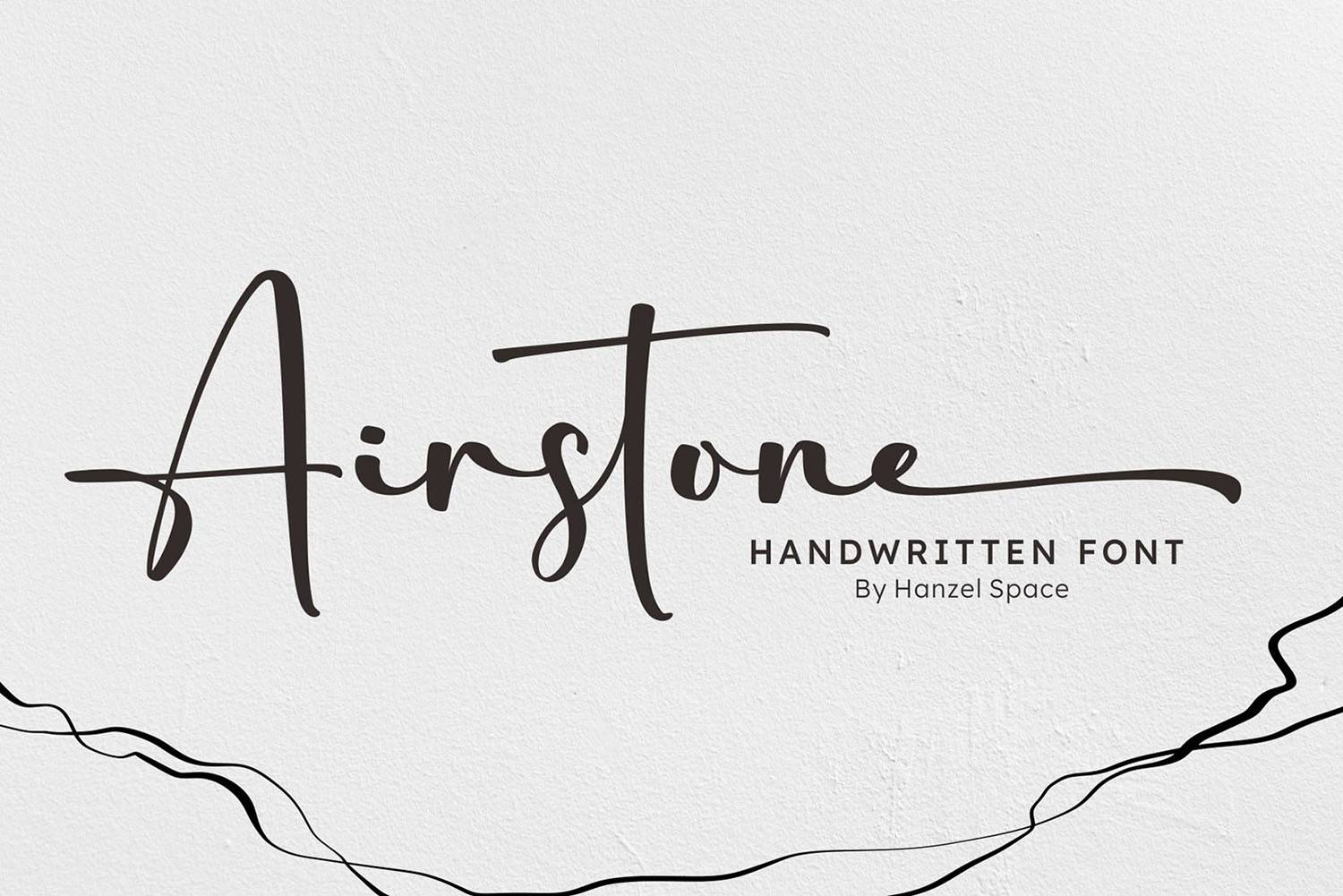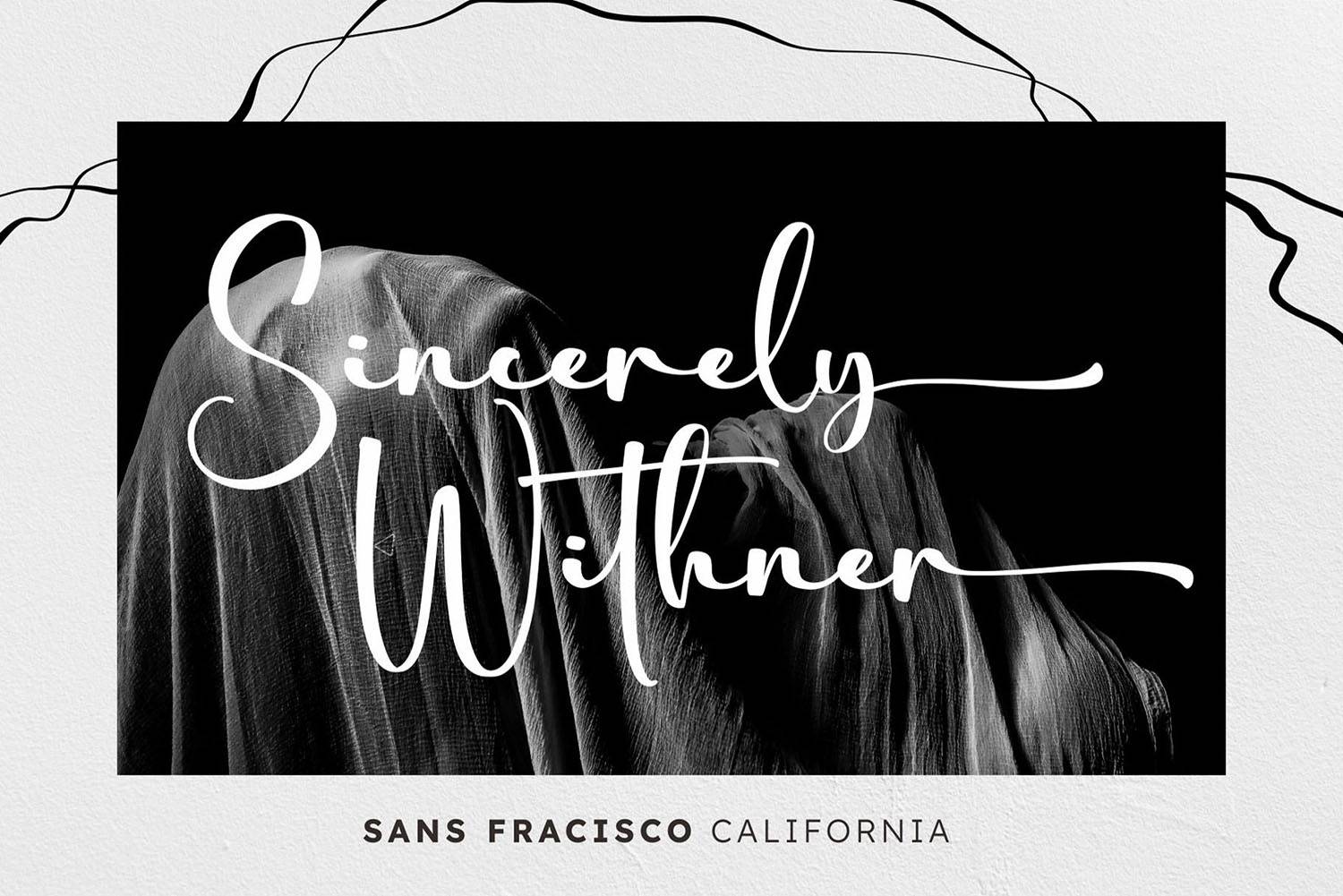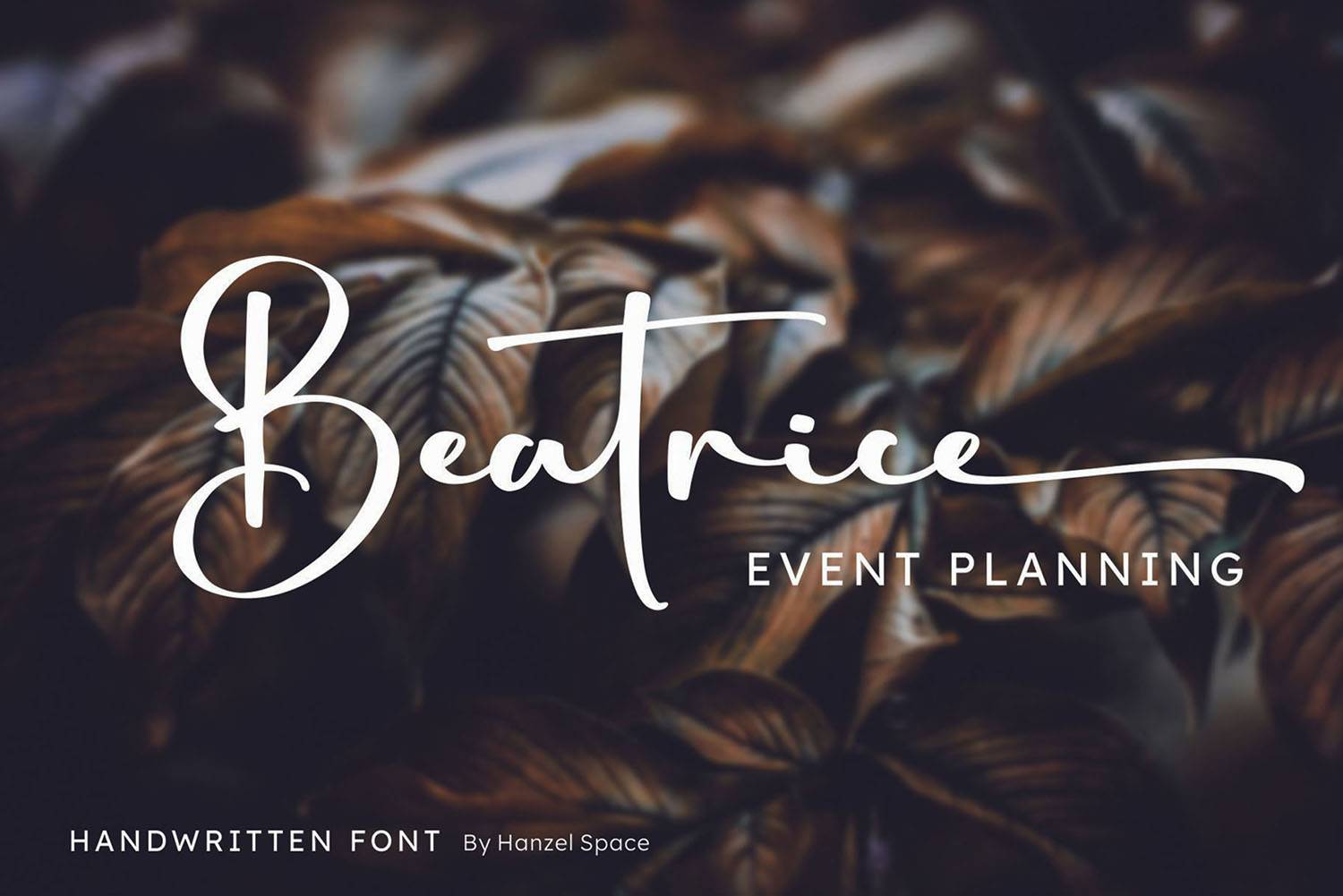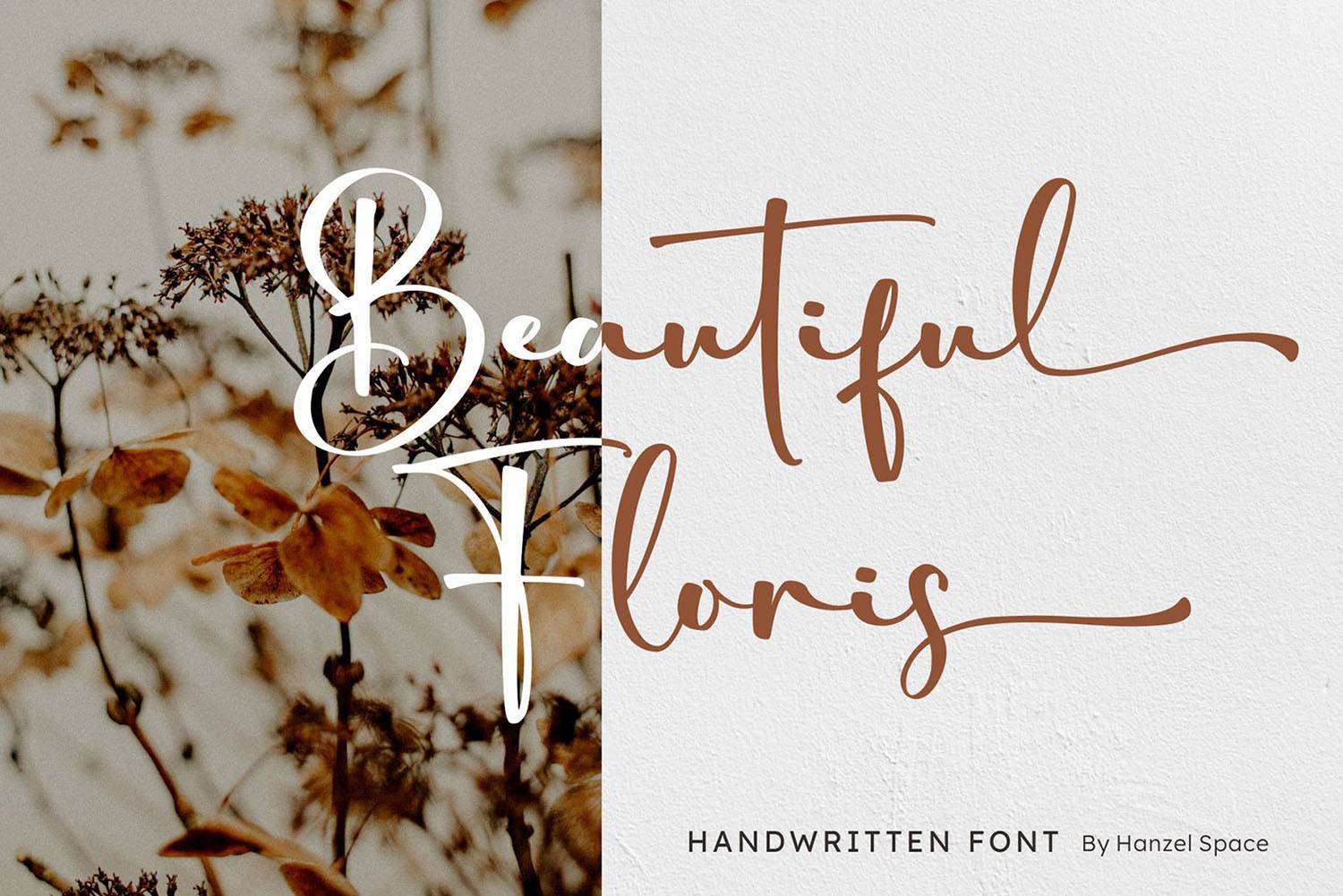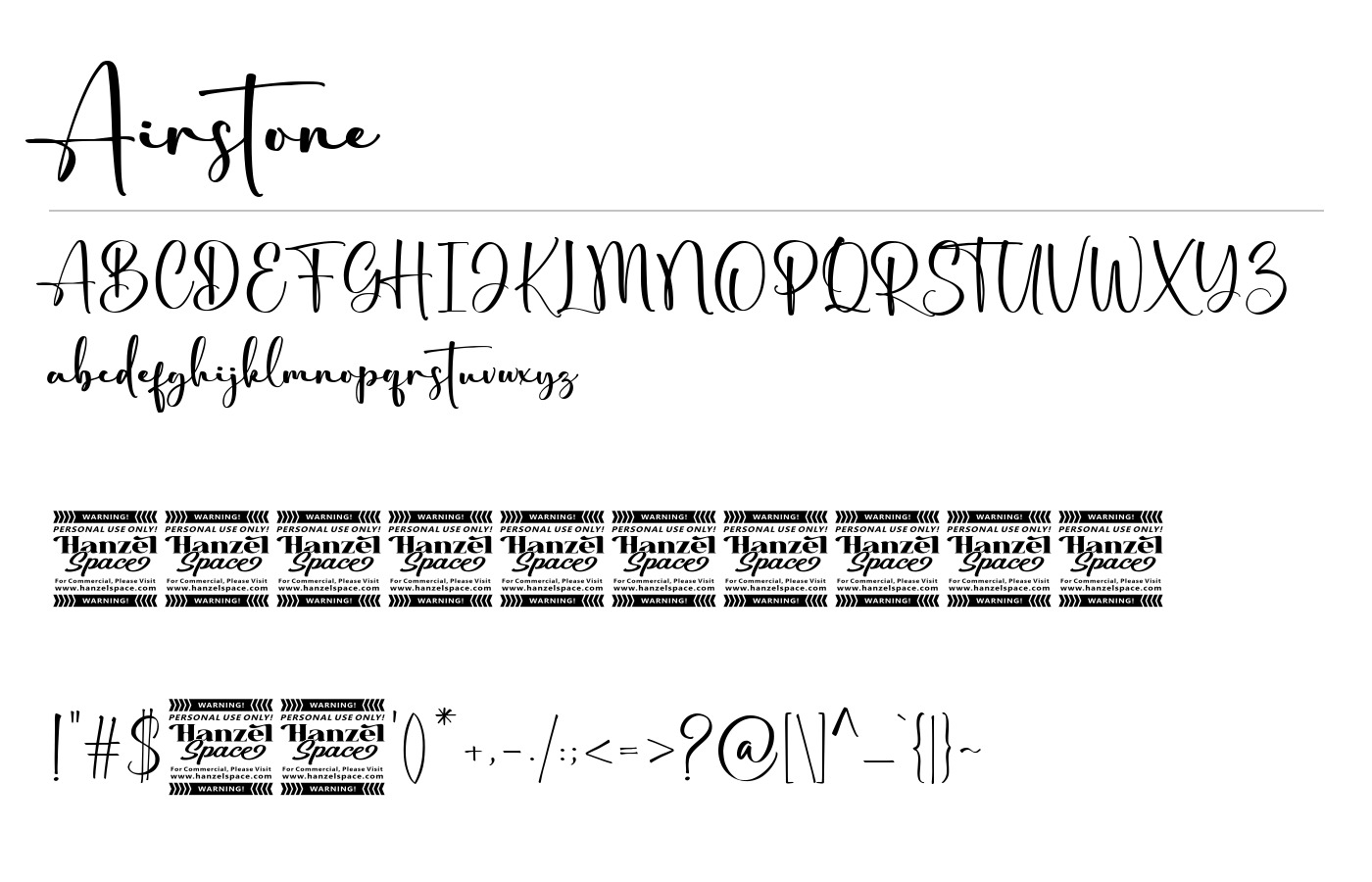
Airstone Script is an elegant and playful handwritten font featuring tall, airy letterforms with a delicate, flowing stroke. Its slender, slightly whimsical style makes it perfect for creative branding, invitations, and modern editorial design where a personal, stylish touch is desired. This font works well in logos and headlines, adding a lively yet sophisticated charm to any project.
Airstone Script Font
About Airstone Script Font
| Font family | Airstone Script Font |
| Designer | Hanief Farandi |